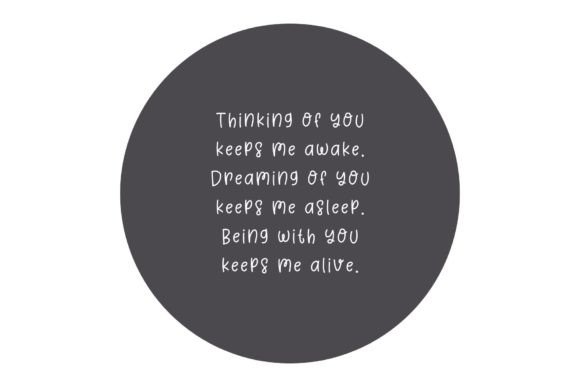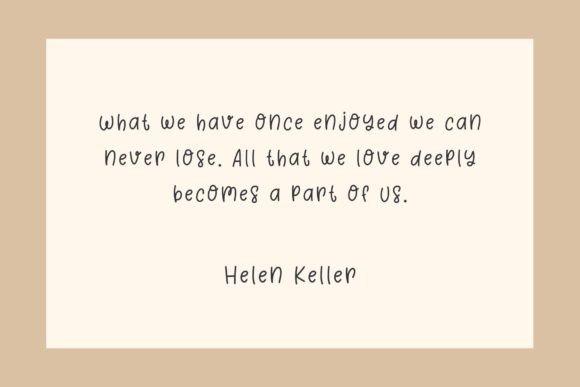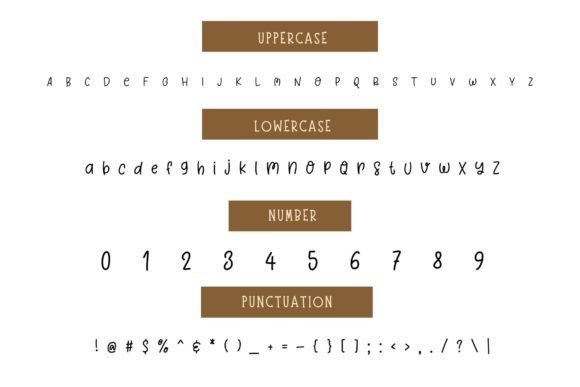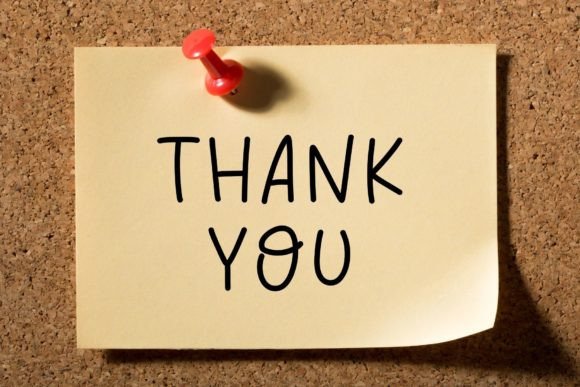
Discover the Charm of Adrianna Font: A Cute Handwritten Delight
Are you on the hunt for a font that embodies playfulness and authenticity? Look no further than Adrianna Font, a cute handwritten font that’s perfect for adding a personal touch to your designs. Whether you’re working on blog posts, logos, branding, ads, invitations, greeting cards, planners, photo albums, decorations, or more, Adrianna Font is the ideal choice.
The Perfect Blend of Playfulness and Authenticity
Adrianna Font is a beautifully crafted handwritten font that exudes a sense of playfulness and authenticity. Its unique and charming letterforms make it perfect for designers and crafters who want to add a personal touch to their work. With Adrianna Font, you can create designs that are both visually appealing and engaging.
One of the best things about Adrianna Font is its versatility. It’s a font that can be used for a wide range of design projects, including:
- Blog posts: Add a personal touch to your blog posts and make them stand out from the crowd.
- Logos and branding: Create a unique and memorable brand identity with Adrianna Font.
- Ads: Make your ads more engaging and eye-catching with this cute handwritten font.
- Invitations and greeting cards: Add a touch of warmth and personality to your invitations and greeting cards.
- Planners and photo albums: Create beautiful and functional planners and photo albums with Adrianna Font.
- Decorations: Use Adrianna Font to add a personal touch to your decorations, such as party banners and signs.
Why Choose Adrianna Font?
So, why should you choose Adrianna Font for your design projects? Here are just a few reasons:
- Unique and charming letterforms: Adrianna Font features unique and charming letterforms that will add a personal touch to your designs.
- Playful and authentic feel: This font embodies a playful and authentic feel that’s perfect for designers and crafters who want to create engaging and visually appealing designs.
- Easy to read and use: Adrianna Font is easy to read and use, making it perfect for a wide range of design projects.
- Versatile: This font can be used for a wide range of design projects, from blog posts and logos to invitations and decorations.
Tips for Using Adrianna Font
Here are a few tips for using Adrianna Font in your design projects:
- Use it as a headline font: Adrianna Font is perfect for use as a headline font, adding a touch of personality and playfulness to your designs.
- Pair it with other fonts: Experiment with pairing Adrianna Font with other fonts to create a unique and visually appealing design.
- Use it for body text: Adrianna Font is also suitable for use as a body text font, adding a personal touch to your blog posts, articles, and more.
Get Creative with Adrianna Font
Adrianna Font is a versatile and charming font that’s perfect for designers and crafters who want to add a personal touch to their designs. With its unique and charming letterforms, playful and authentic feel, and ease of use, it’s the perfect choice for a wide range of design projects. So why not give Adrianna Font a try and see the amazing results for yourself?
In conclusion, Adrianna Font is a cute handwritten font that’s perfect for designers and crafters who want to add a personal touch to their designs. With its versatility, playfulness, and authenticity, it’s the ideal choice for a wide range of design projects. Whether you’re working on blog posts, logos, branding, ads, invitations, greeting cards, planners, photo albums, decorations, or more, Adrianna Font is sure to deliver amazing results.